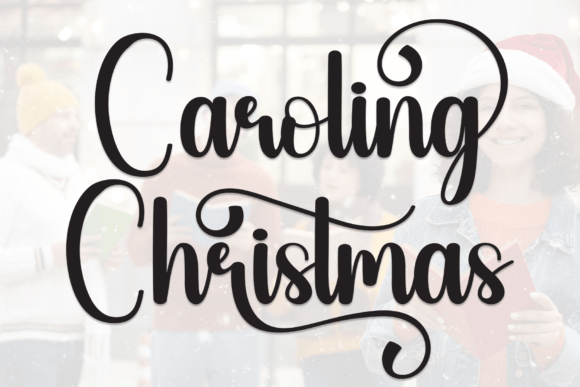
The Magic of Handwritten Fonts: Unwrapping the Caroling Christmas Font
As the snowflakes gently fall outside and the fireplace crackles to life, the holiday season is in full swing. It’s the perfect time to get creative and infuse your designs with a touch of festive magic. And what better way to do that than with the enchanting Caroling Christmas Font?
Designed to evoke the warmth and charm of handwritten notes, this lovely font is a designer’s dream come true. With its unique and beautiful touch, the Caroling Christmas Font is the perfect choice for creating eye-catching logos, branding, and quotes that will leave a lasting impression. Whether you’re working on a holiday campaign or simply want to add a festive flair to your designs, this font is sure to make your work shine.
- Unique Characteristics: Caroling Christmas Font features a festive and playful design, with intricate details and ornaments that evoke a sense of holiday cheer.
Designer Review: Caroling Christmas Font
As a designer, I was excited to dive into the Caroling Christmas Font, and overall, I’m pleased with its charm and festive vibe. Here’s what works well:
- ✨ The font’s traditional, handwritten feel is perfect for holiday-themed projects, especially Christmas cards, invitations, and decorations.
- ✨ The font’s size and weight variations are well-suited for headings and body text, making it easy to use in various design contexts.
- ✨ The font’s character set is decent, covering the Latin alphabet and a few special characters, which should suffice for most holiday designs.
- ⚠️ The font’s legibility can be a bit rough, especially at smaller sizes, which may make it challenging to read in certain situations.
Overall, I think the Caroling Christmas Font is a great addition to any designer’s holiday collection. While it may have some limitations, its unique charm and festive feel make it a worthwhile investment for those who need a traditional, handwritten font for their holiday designs.